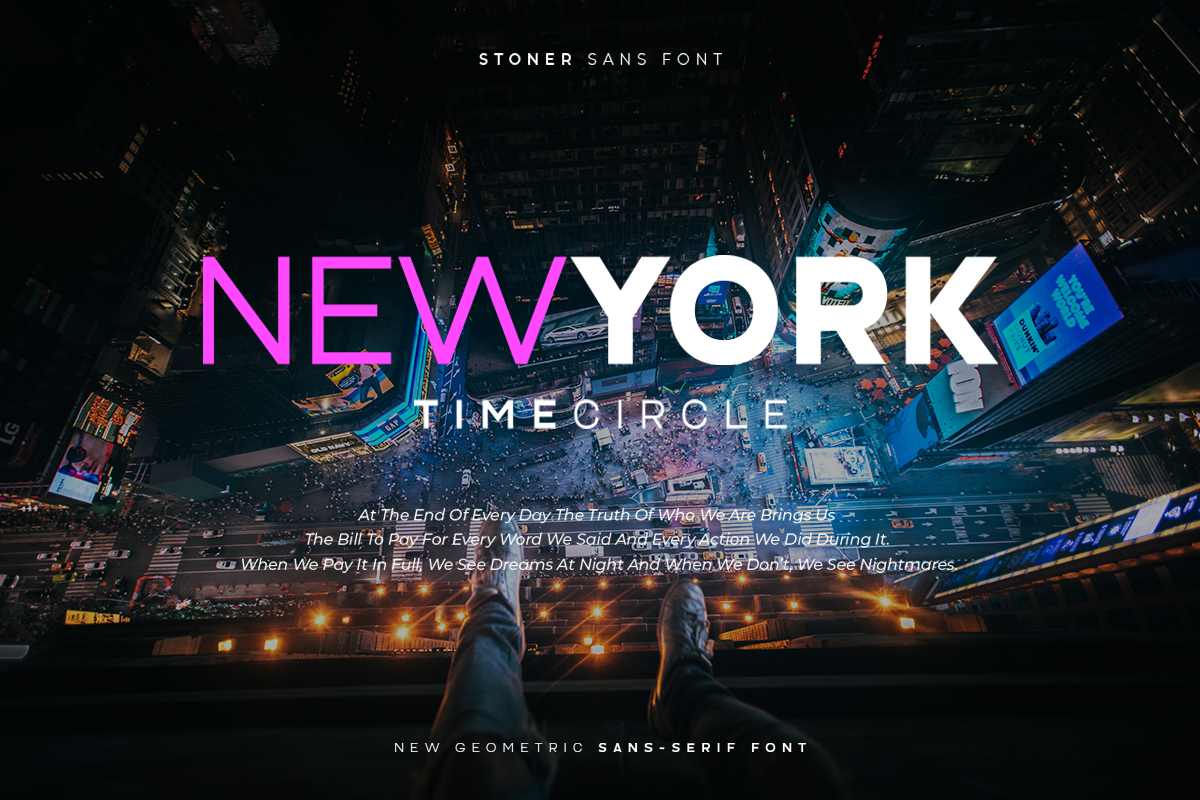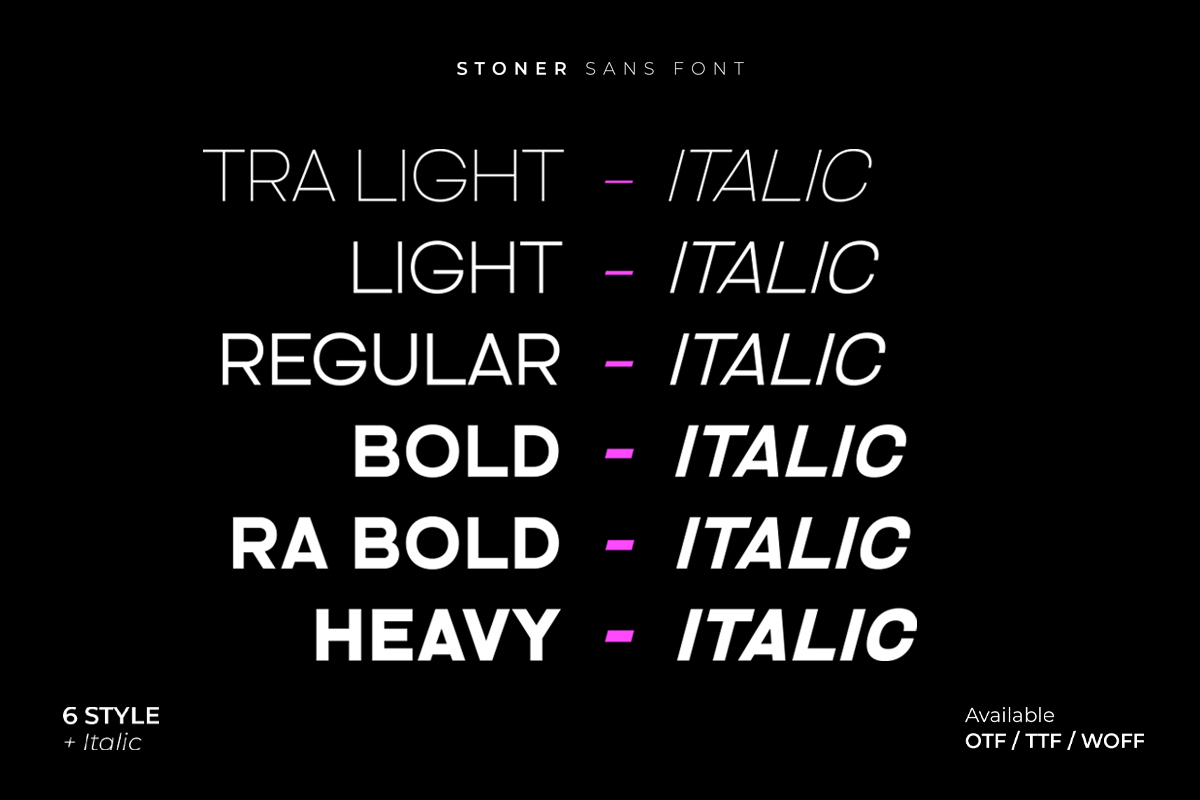
STONER Sans Serif Font
This Is New Geometric Family Sans Inspired By Modern and Elegant Font. With a very strong font character will make your design different and more attractive. This font has several alternatives built into it, perfect for creating logo designs, badges, web fonts, magazines and more.